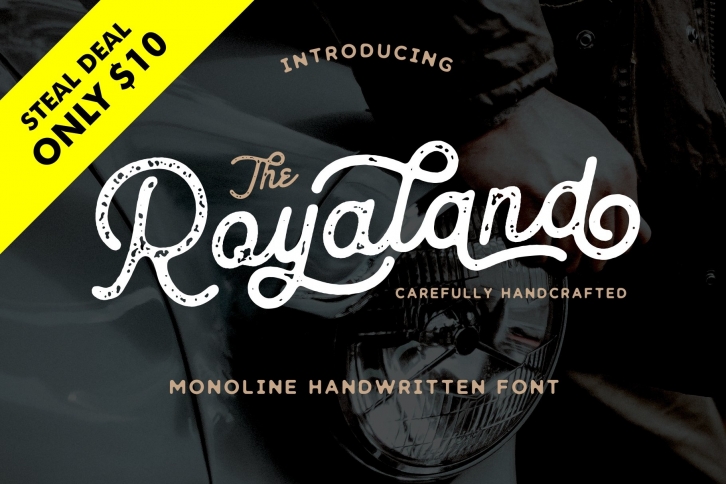
We introduce our new product called Royaland Font. The Royaland Font is a monoline font which has two styles, Clean and Rough (stamped). With those kind of styles, The Royaland Font will looks more vintage. Royaland Font also has a standart Multilingual Support. Royaland Font is great for Logotype, Branding Design, Logo Design, Digital Lettering Arts, T-Shirt/Apparel, Poster, Magazine, Signs, Advertising Design, and any vintage design needs.
Royaland Font Features :
• Upper and Lowercase Standard Characters, Punctuation, Numerals.
• Opentype Features such as Standard Ligature and Stylistic Set include swash (ss01 - ss08).
• PUA Encoded Characters - Fully accessible without additional design software.
• Includes a range of multilingual characters.